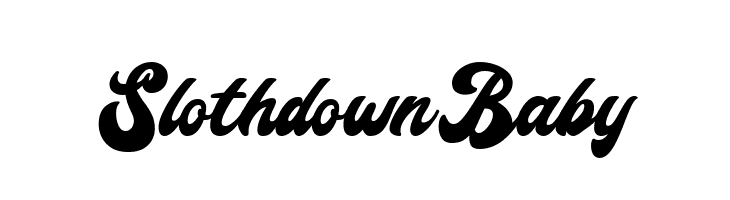
A bold, cursive font with a playful and dynamic style.
A bold, brush-style font with dynamic strokes and an artistic flair.
A bold, expressive script font with a handwritten style.
A bold, hand-drawn font with a playful, brush-lettering style.
An elegant, flowing script font with bold weight and high contrast.